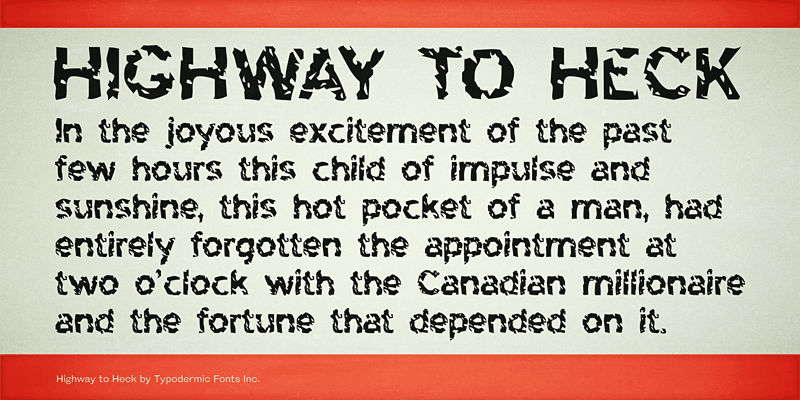
Highway To Heck is a crumbling highway font, wasting away. This font includes a license that allows free commercial use: sometimes referred to as a desktop license. This allows you to install the font on a computer and use it to create posters, web graphics, game graphics, t-shirts, videos, signs, logos and more. Read the license agreement for details. If you'd like to embed this font in an app, ebook, on the web or anything that's not covered by the desktop license agreement, visit the link below. You'll find distributors who offer different types of licenses or you can contact me for help. http://typodermicfonts.com/highway-to-heck/ |